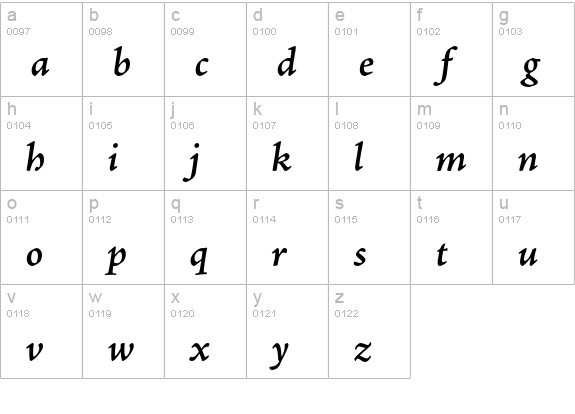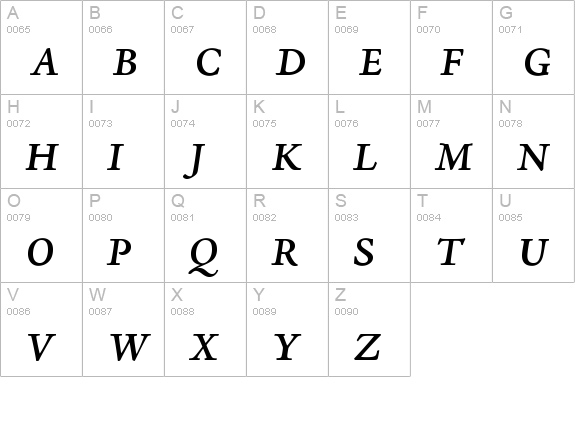
Adobe Jenson Pro Semibold Italic Caption Font Details
Adobe Jenson Pro Semibold Italic Caption is a sub-bold, structured, italic variant in the Adobe typeface family \xE2\x80\x94 well suited to sub-headlines and emphasised passages.
Adobe Jenson Pro Semibold Italic Caption is a versatile and elegant font that strikes the perfect balance between professionalism and creativity. With its bold yet graceful italic style, this typeface is ideal for adding emphasis and sophistication to any design project. Whether you're creating a brochure, poster, or website, Adobe Jenson Pro Semibold Italic Caption will elevate your content and make it stand out. The best part? This exquisite font is available for free download at FontsMarket.com. Don't miss the opportunity to enhance your designs with the timeless beauty of Adobe Jenson Pro Semibold Italic Caption. Download it today and unleash your creativity!